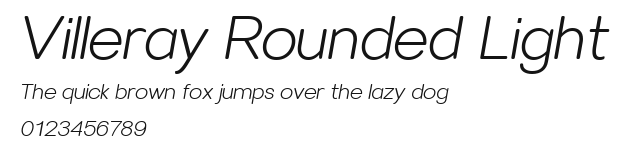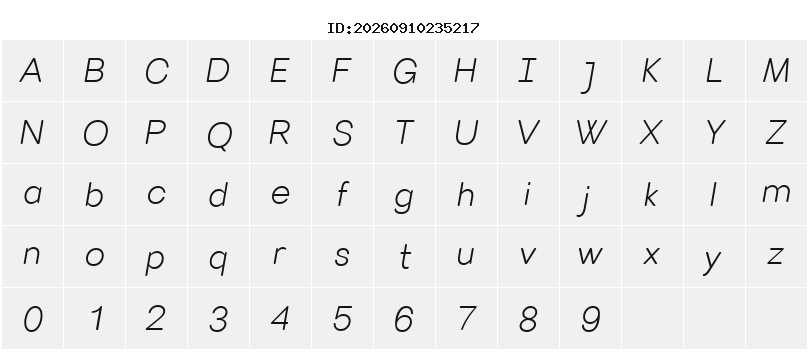
• Font Name: Villeray Rounded Light
• Full Font Name: Villeray Rounded Light Italic
• Designer: Jérémie Dupuis
• Manufacturer: Jérémie Dupuis
• Description: Villeray by Jérémie Dupuis ——FEATURES—— —Supports extended Latin, Vietnamian, extended Cyrillic and monotonic Greek. —Designed for great legibility. —8 weights from Thin to Heavy. —Extended math support. —Many OpenType alternates: - Use Stylistic Alternates (salt) to activate all stylistic sets at once. - Single and double stories ‘a’ (ss01). - Two different number ‘8’ (ss02). - Single and double stories ‘g’ (ss03). - Two different ‘@’ (ss04). - Curly and straight cyrillic letters Zhe, Ka and Kje (ss05). - Two different styles for the braces ‘{’ and ‘}’ (ss06). - Sans serif ‘I’ (ss07). - Alternate vertical terminal ‘S’ (ss08). - Alternate ‘4’ (ss09) - Alternate ‘J’ (ss10) - Alternate straight ‘M’ (ss11) - Alternate long descender ‘f’ (ss12) —Many sets of numbers: - Superscript and subscript (sups and subs), which includes basic math characters (+, -, =, etc.). - Tabular numbers (tnum) for use in tables to align all the numbers together. - Alternate ‘0’ for stylistic or practical use (zero). —Automatic fraction feature (frac) - Just activate the feature on all text and it will only substitute fractions. - Adapted from Tal Lemming’s Fraction Fever 2.
Villeray Rounded Light.ttf is a modern, elegant sans-serif font designed for ultimate readability and visual harmony. Perfect for branding, headlines, web design, and print materials.